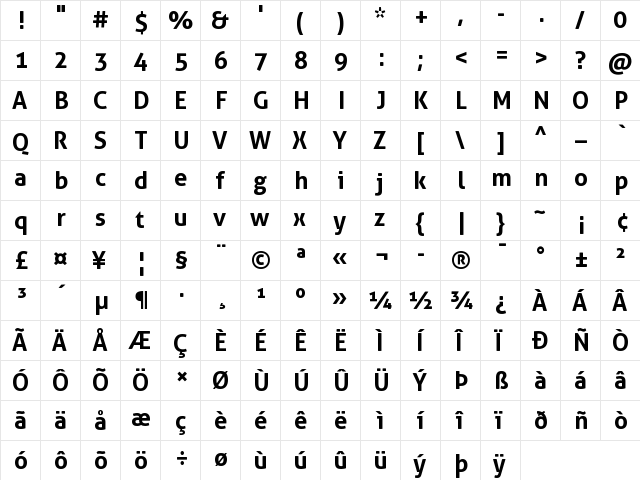
Aller Bold
| Foundry | Dalton Maag Ltd. |
Design Context for Aller Typeface
Aller takes a measured approach to typography — its balanced proportions and neutral character make it a reliable workhorse for both digital and print work. The heavy weight commands attention and anchors typographic hierarchies.